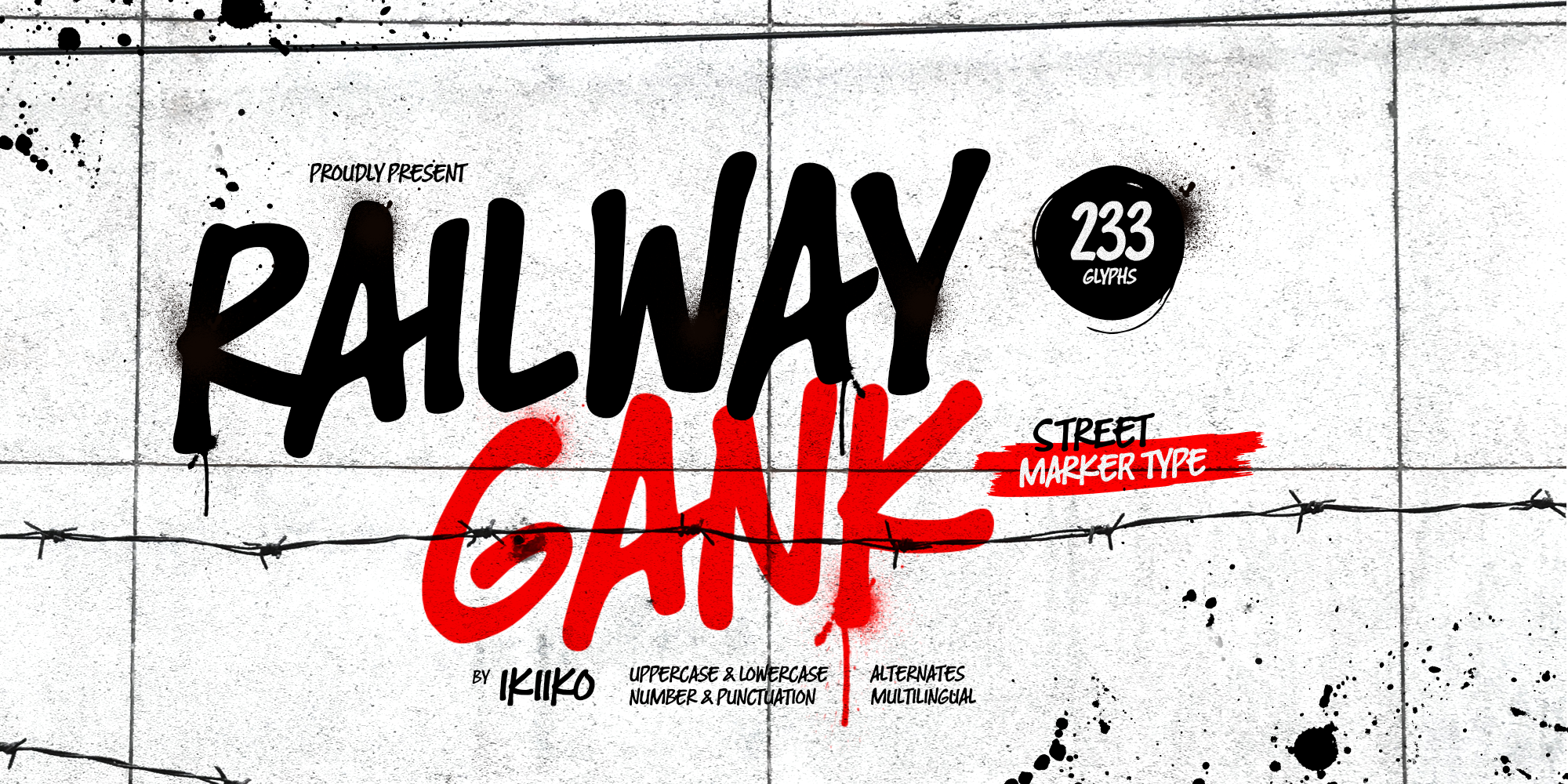
Railway Gank Font is ideal for industrial branding projects, urban design campaigns, transportation company logos, construction company signage, automotive advertising, street art designs, music album covers, sports team branding, gaming interfaces, and modern architectural presentations. This bold typeface perfectly captures the essence of urban culture and industrial strength in contemporary design applications.
What makes Railway Gank Font exciting is its powerful combination of industrial aesthetics and street-smart appeal. The font features strong, angular letterforms with distinctive character construction that evokes the raw energy of urban environments and industrial machinery. Its robust design language communicates strength, reliability, and modern edge, making it perfect for brands that want to project confidence and urban sophistication.
Railway Gank Font comes in comprehensive font families including Regular, Bold, Light, Heavy, Condensed, and Extended variations. Each family member maintains the characteristic industrial feel while offering different weights and widths to accommodate various design needs, from subtle branding elements to bold headline statements.
For projects requiring urban authenticity and industrial strength, Railway Gank Font Free Download provides the typographic power needed to make bold statements. The font's distinctive character and versatile family options make it an excellent choice for designers working on contemporary projects that need to communicate strength, modernity, and urban appeal across digital and print media platforms.